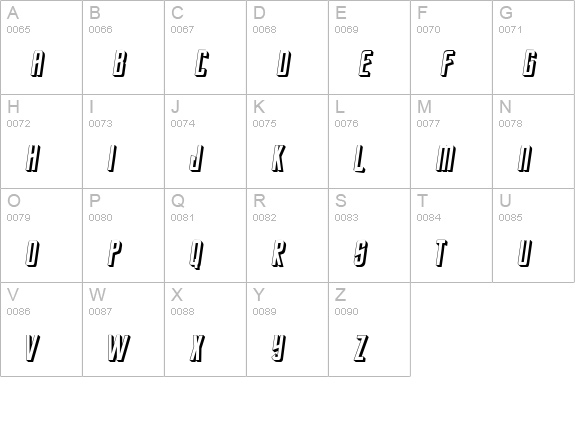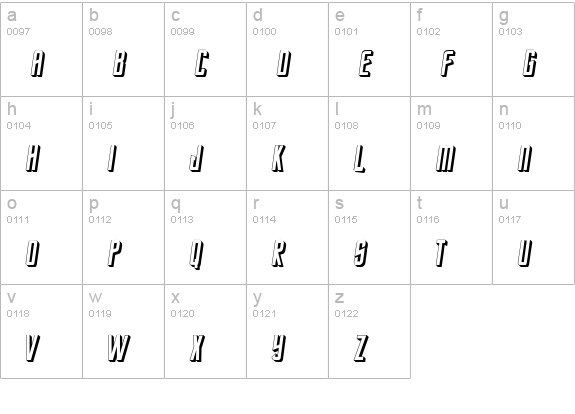
Star Trek Enterprise Future Italic Font Details
Star Trek Enterprise Future Italic is a distinctive, italic variant in the Star typeface family \xE2\x80\x94 well suited to design and typography projects.
Introducing Star Trek Enterprise Future Italic font, a mesmerizing display of futuristic aesthetics and captivating design. This font embodies the essence of exploration, adventure, and the boundless possibilities of the unknown. With its sleek and streamlined appearance, Star Trek Enterprise Future Italic font transports you to a world where technology seamlessly merges with imagination. Each letter of this font is meticulously crafted to convey a sense of forward-thinking innovation, with its italicized form adding an extra touch of dynamism and movement. The bold strokes and intricate details of Star Trek Enterprise Future Italic font make it perfect for various creative projects, including posters, advertisements, logos, and more. And the best part? Star Trek Enterprise Future Italic font is available to download for free at FontsMarket.com! This means that you can effortlessly enhance your designs with this extraordinary font without any cost. Embrace the spirit of exploration and boldly go where no design has gone before with Star Trek Enterprise Future Italic font, freely available to download at FontsMarket.com.